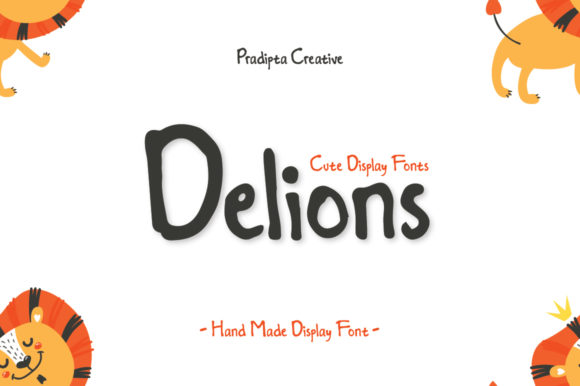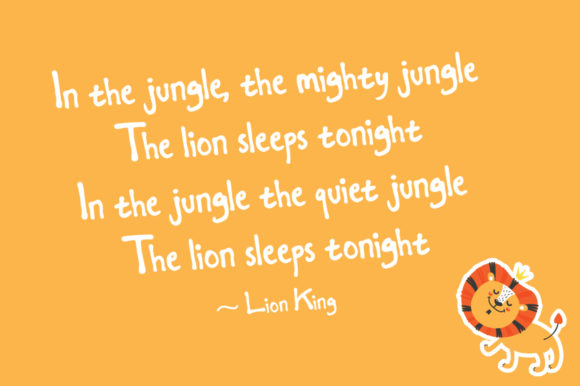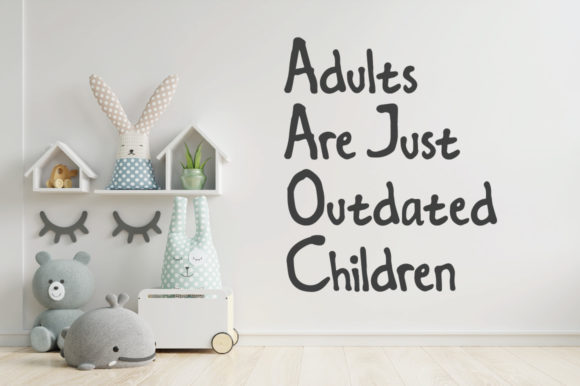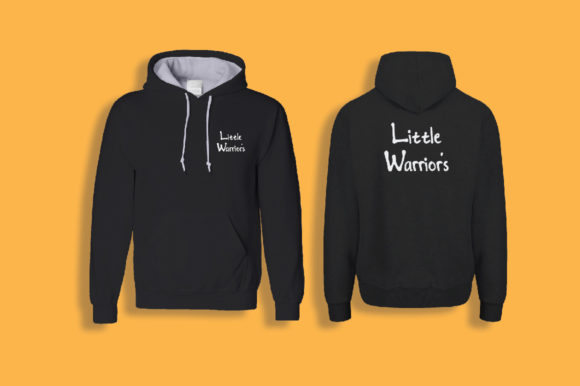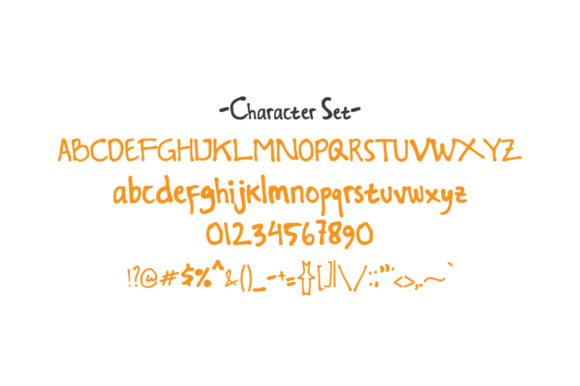
About Delions Font
Delions is a hand-made font that depicts happiness and courage in many ways as does a brave lion king! Delions can be applied in various ways with its distinctive character that is cheerful and brave, making it stand out in many ways.